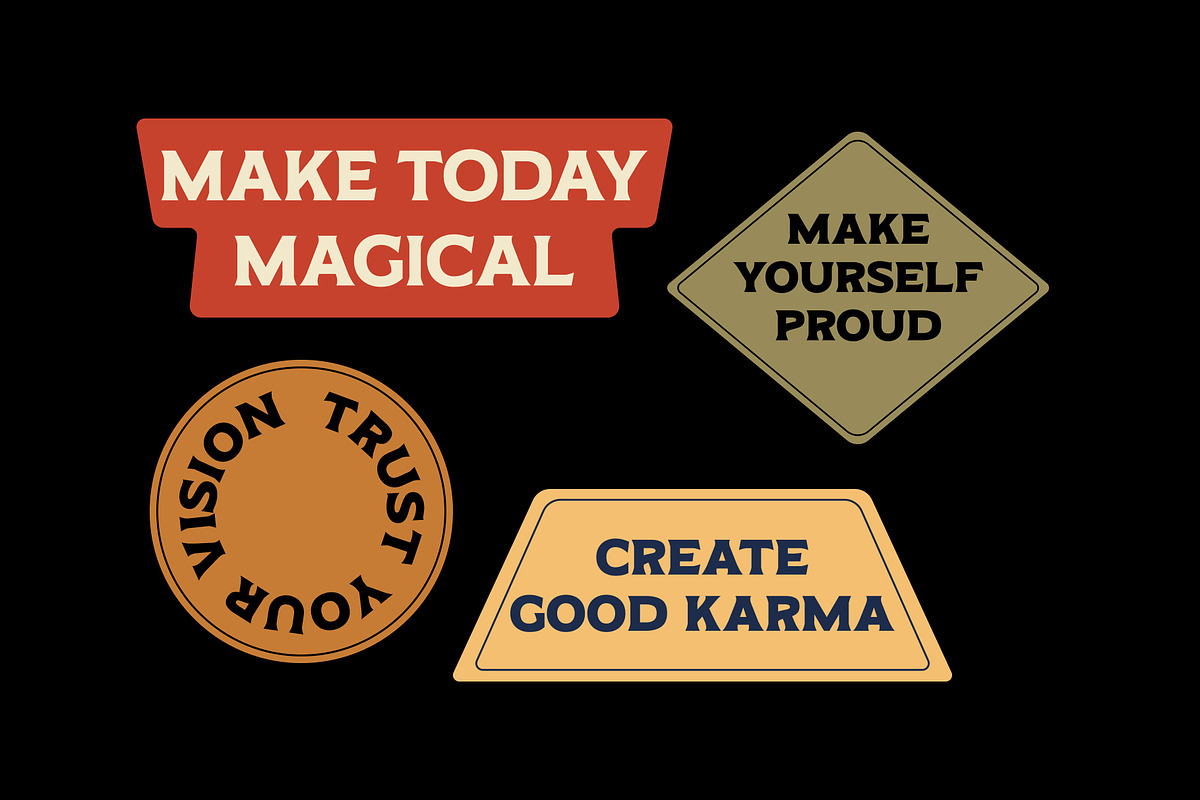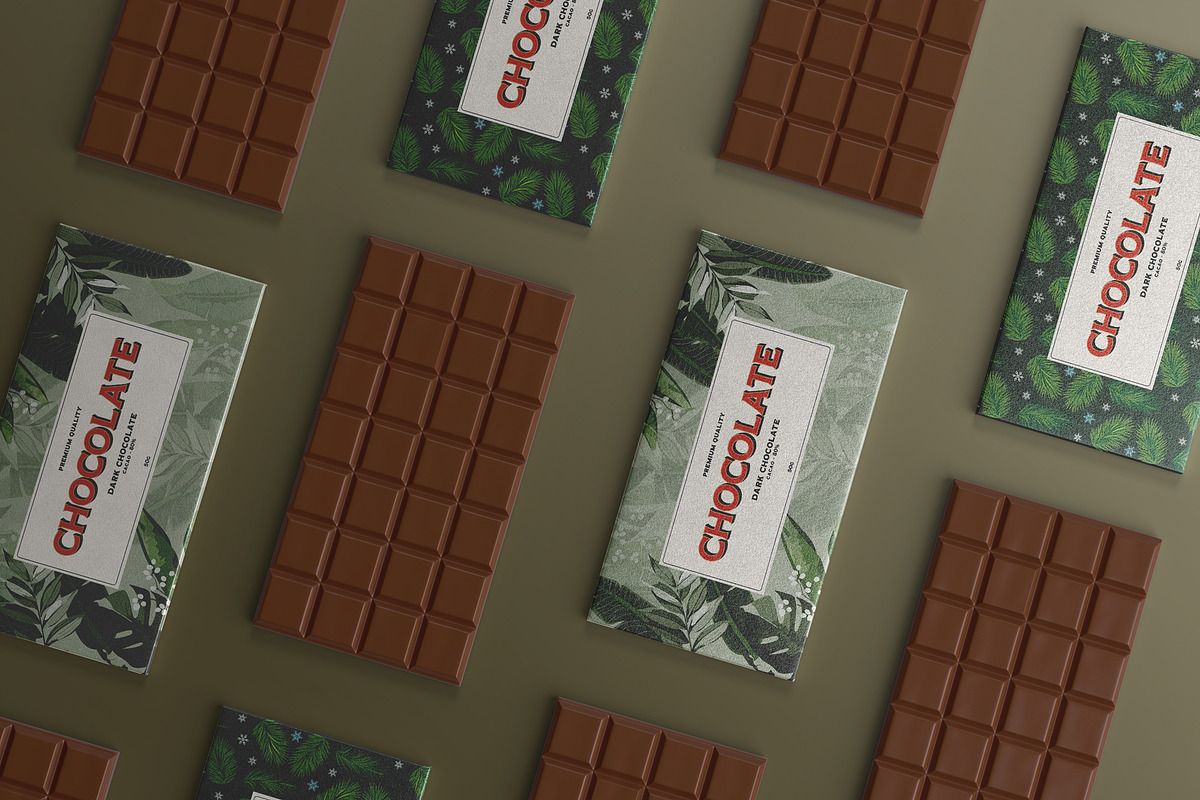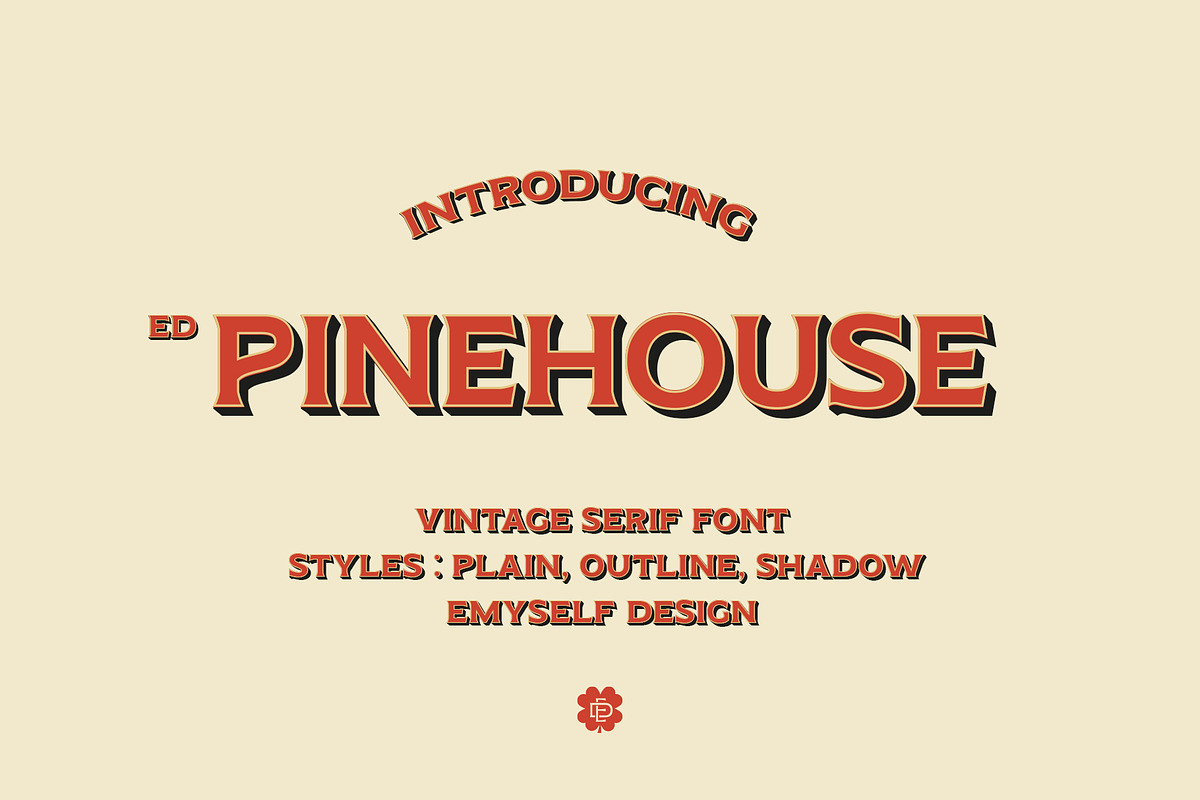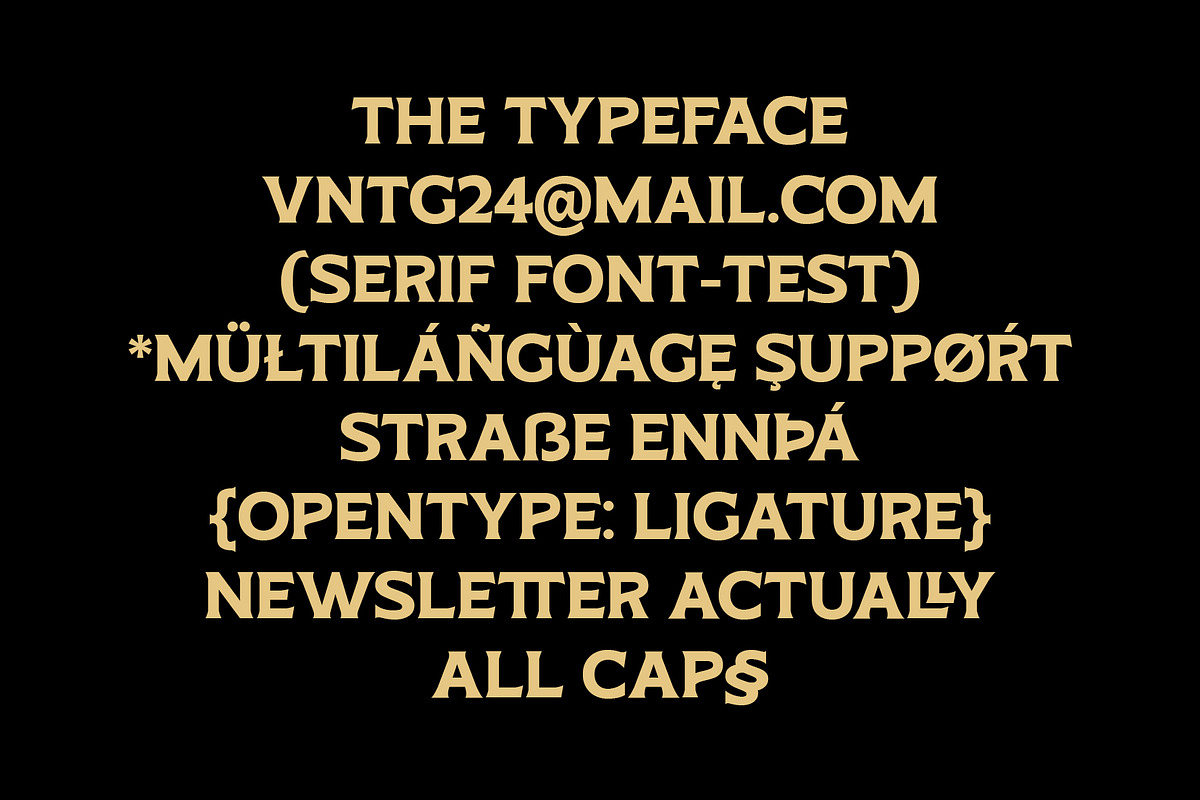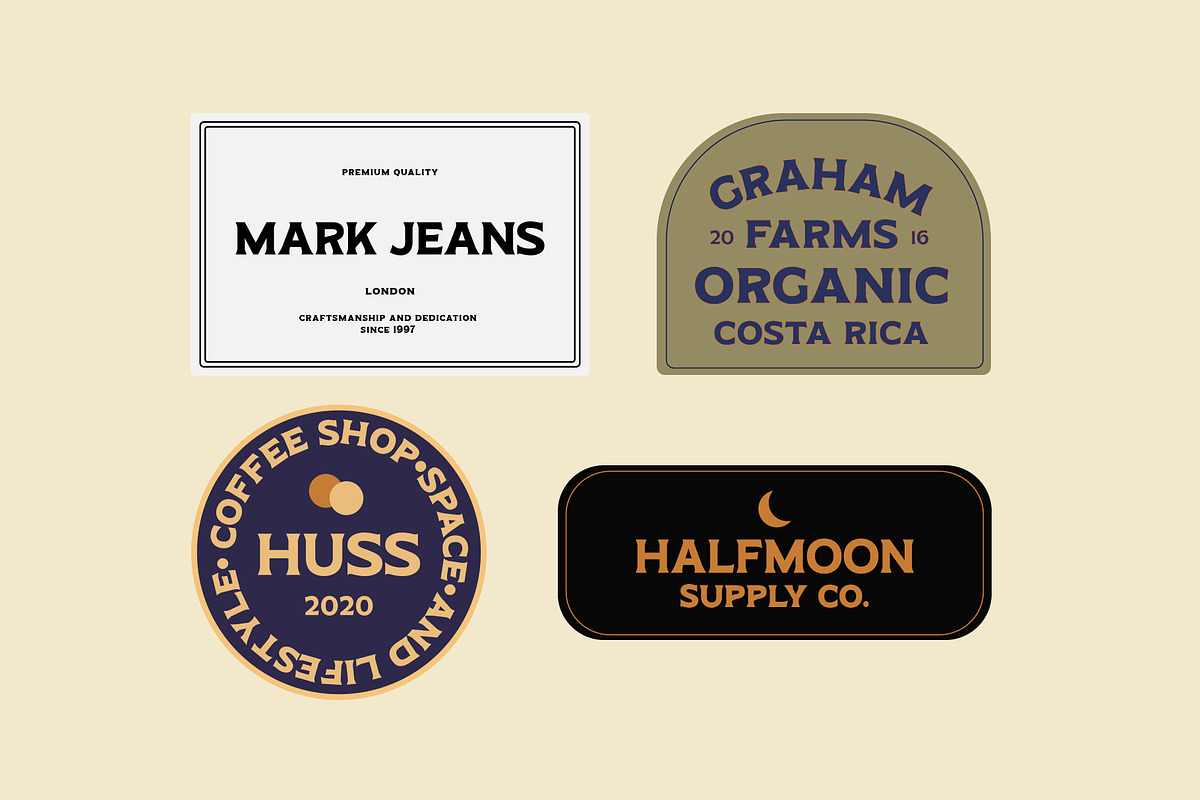
ED Pinehouse Vintage Serif
Pinehouse is an elegant vintage serif font that consists of 3 types of styles: plain, outline, and shadow. which can be combined to create a 3d or hand painted impression. Pinehouse wants a font that consists of uppercase letters with different sizes/heights with lowercase characters.
Pinehouse is also equipped with features such as Ligature, and multi language support. This font is perfect for your creative projects such as Logotype, printed quotes, invitations, cards, product packaging, headers, Letterhead, Apparel , Web design, Magazine, Book, etc.
- Total Glyph : 378
- 3 Styles : Plain , Outline, & Shadow
- Punctuation and Marks